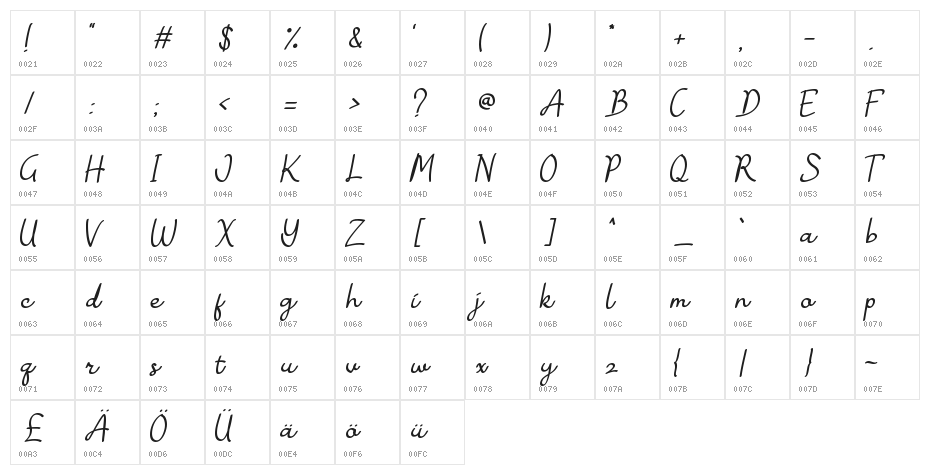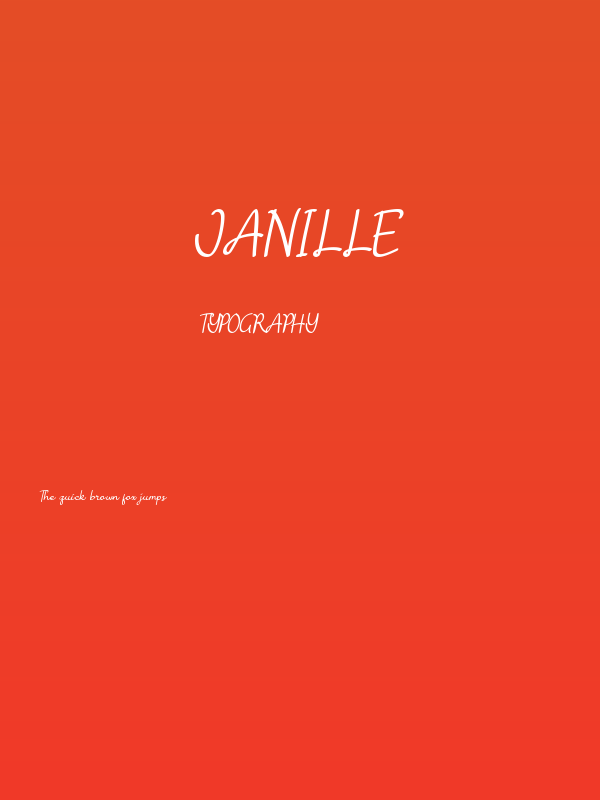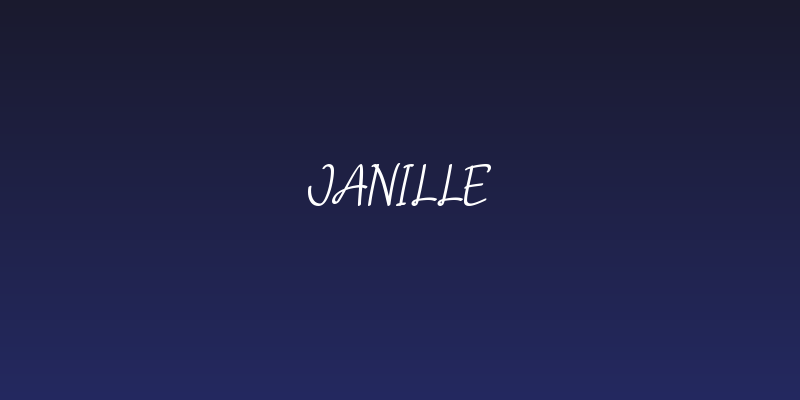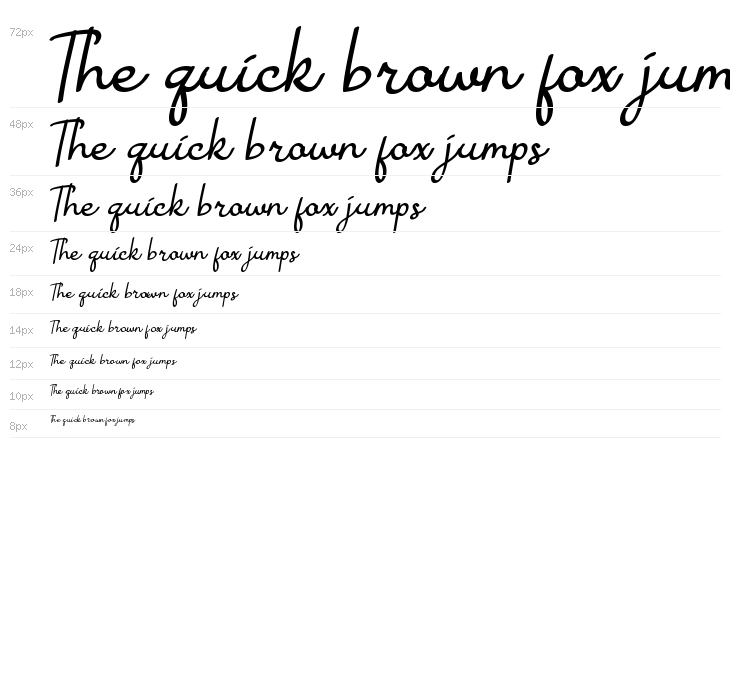
Janille Font
Janille Description
This font exhibits a fluid, handwritten style with a casual yet elegant appearance. The letters are connected, mimicking natural handwriting, which gives it a personal touch. The uppercase letters are slightly more structured, while the lowercase letters flow with a gentle curve. The numbers and special characters maintain the same handwritten aesthetic, ensuring consistency across all characters. The strokes are moderately thick, providing good readability without sacrificing the handwritten charm. This font is ideal for projects that require a personal or informal tone, such as invitations, greeting cards, or personal branding.
| Overall Style | Casual, Elegant |
| Proposed Projects | Ideal for invitations, greeting cards, personal branding, and informal communications. |